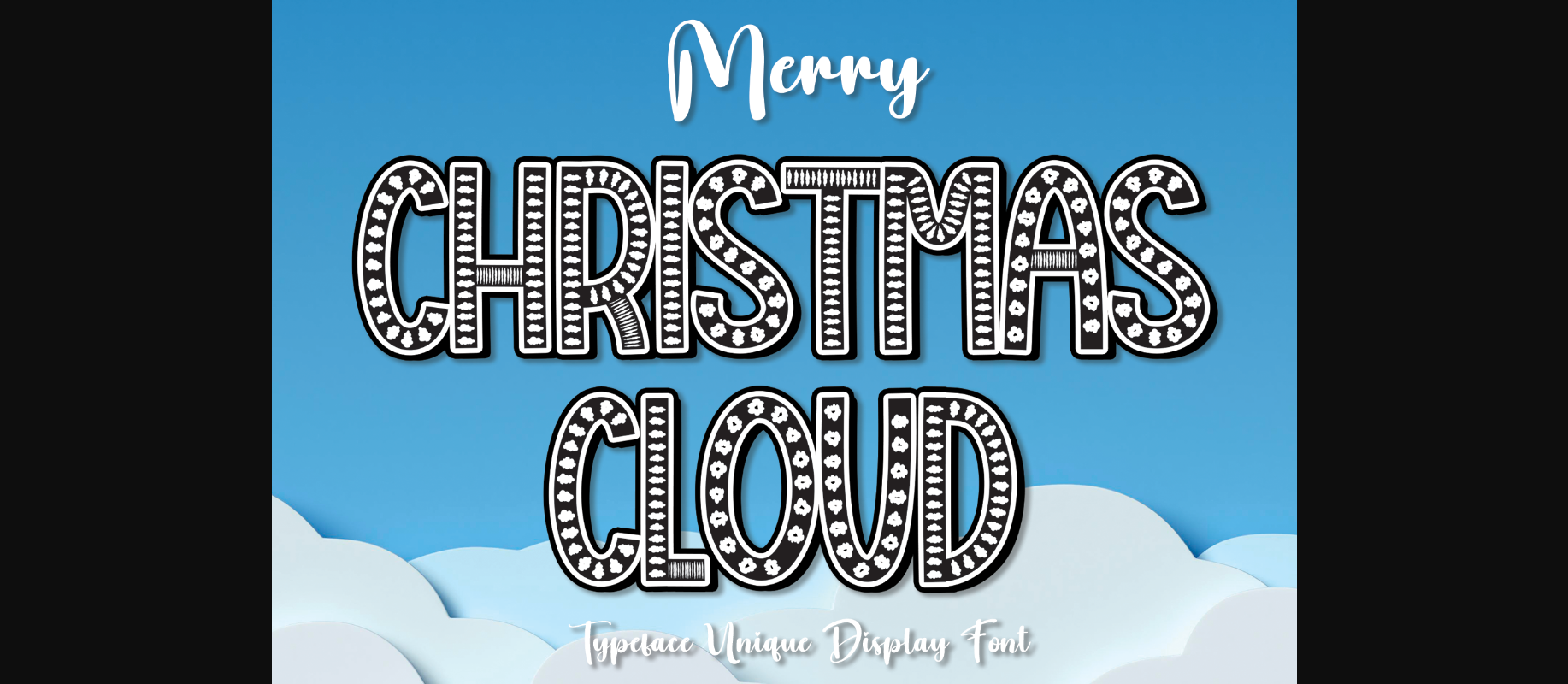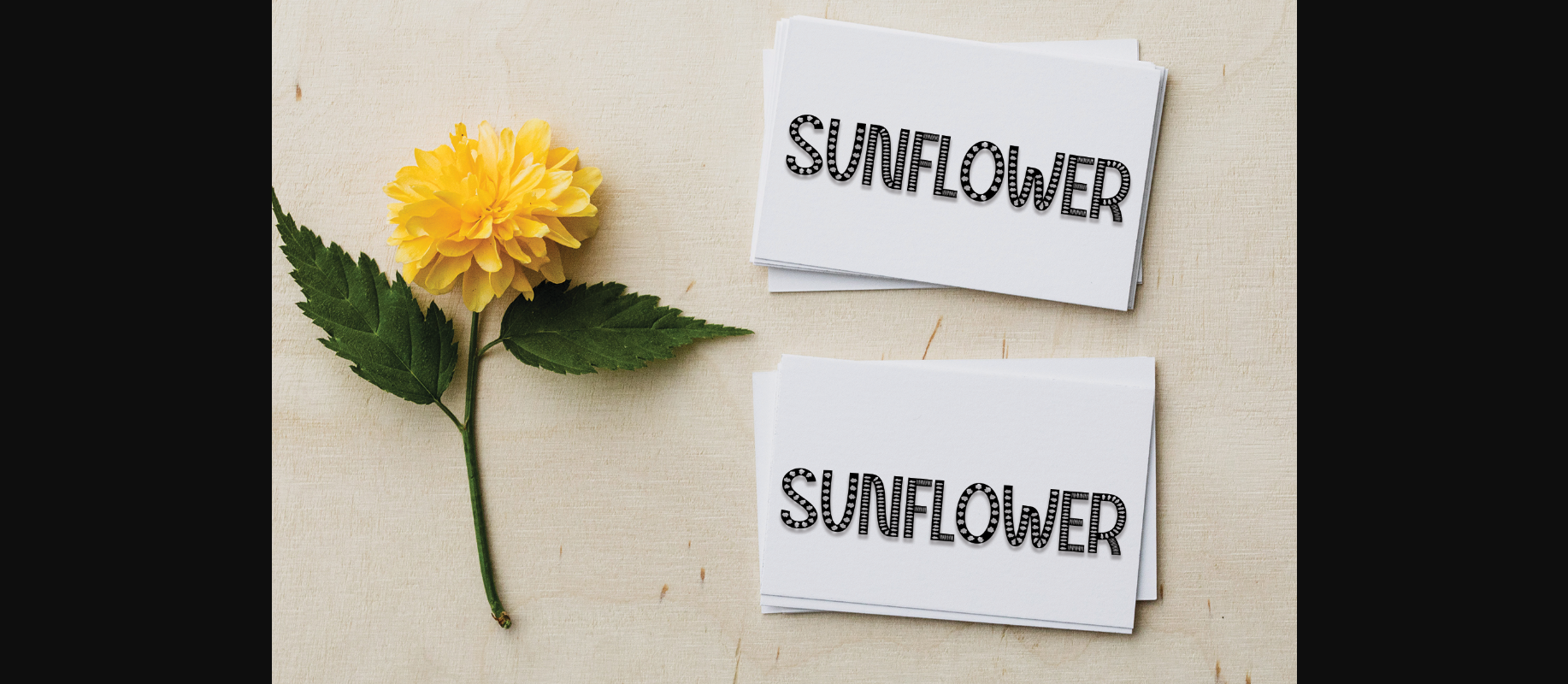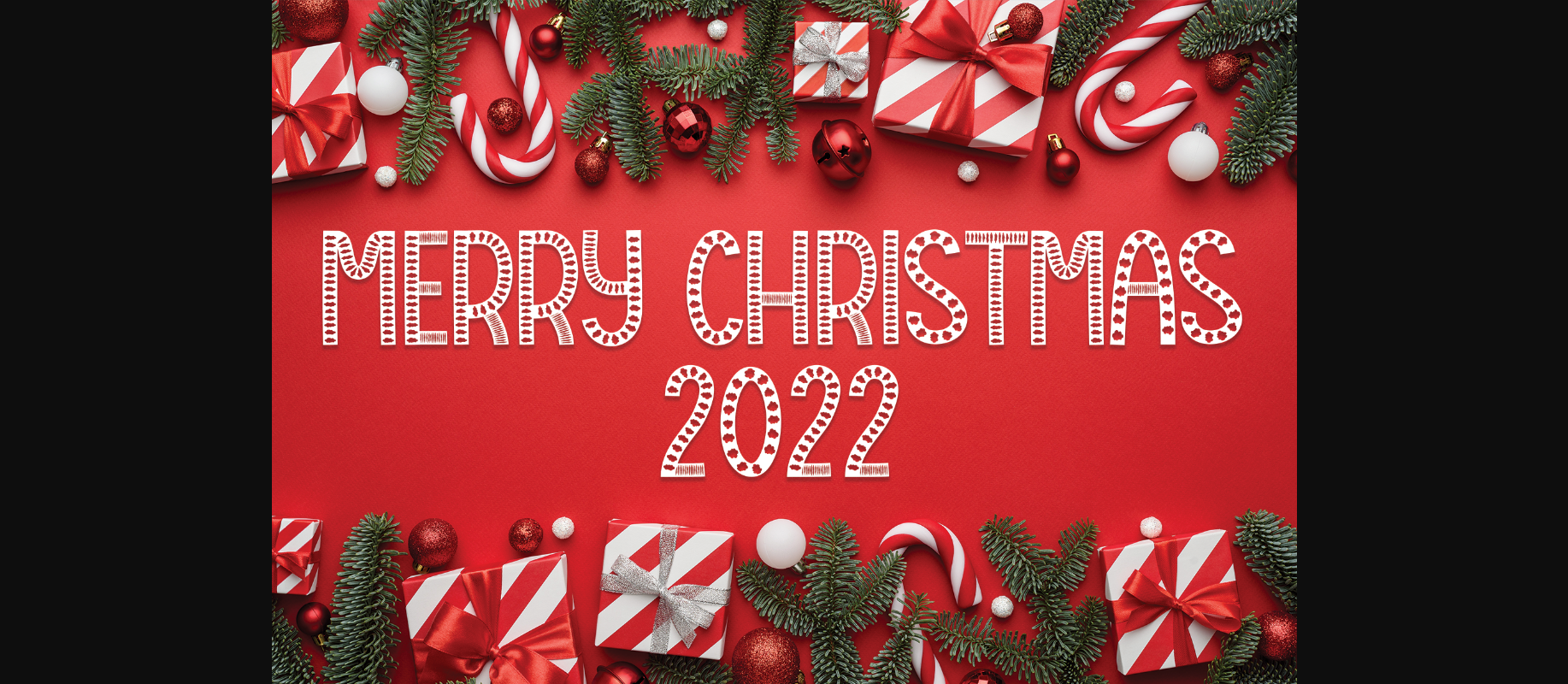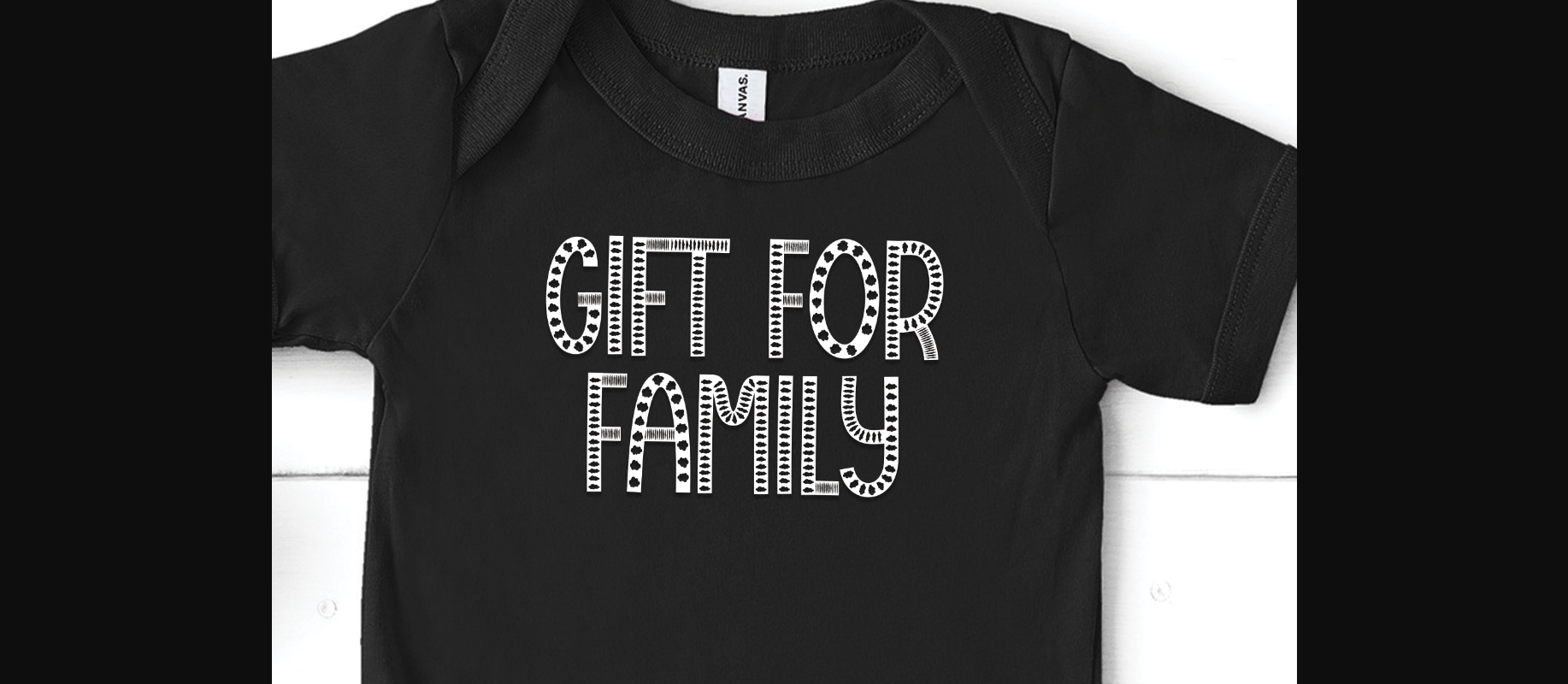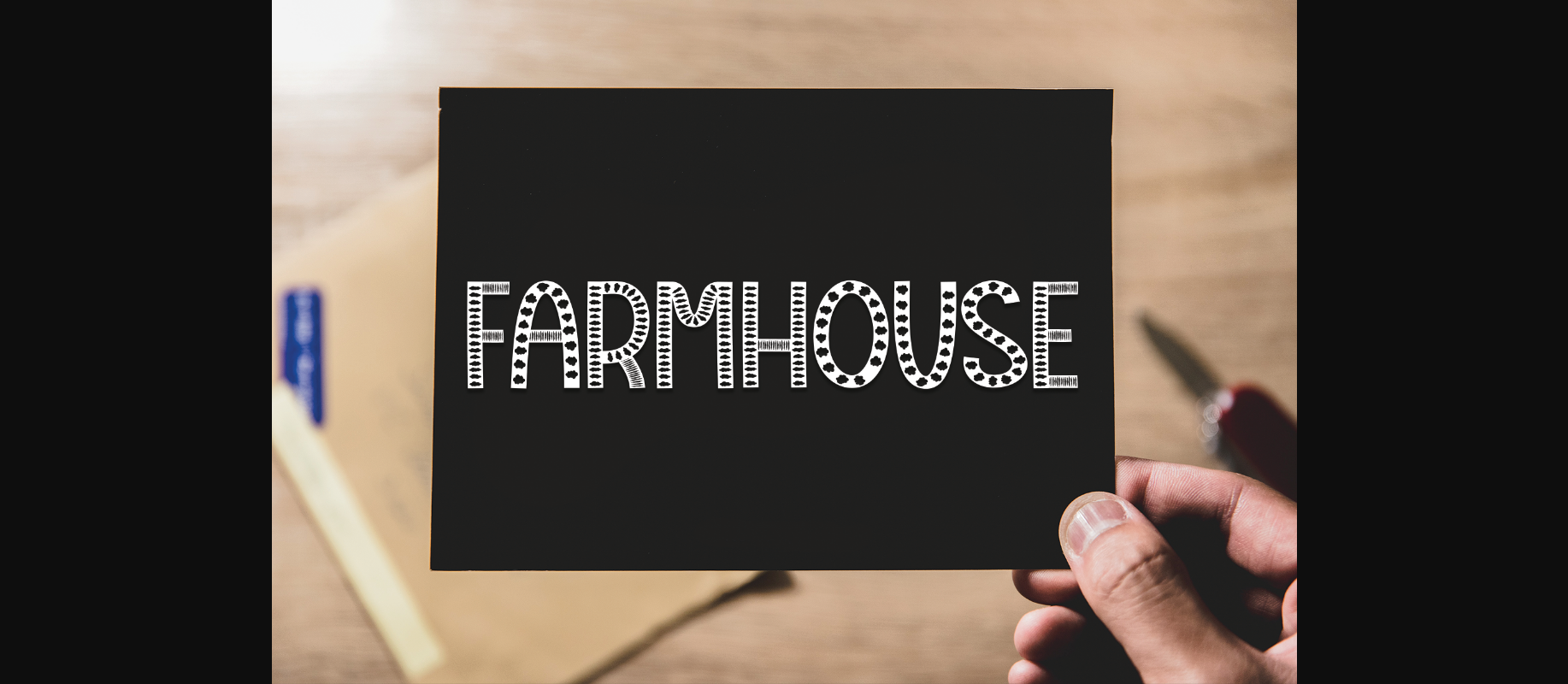
Christmas Cloud Font
About Christmas Cloud Font
Christmas Cloud is a cool and unique decorative font. Add it confidently to your projects and enjoy the results!